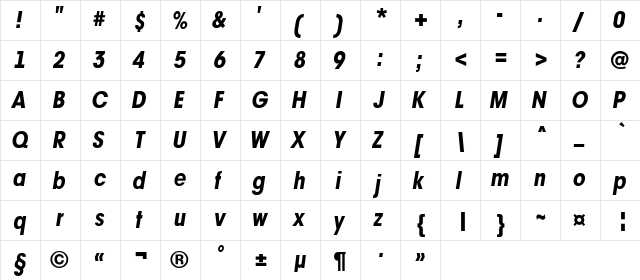
a_AvanteTckNr ExtraBoldItalic
Design Context for a_AvanteTckNr Typeface
a_AvanteTckNr offers clean, dependable letterforms without strong stylistic allegiance, making it a practical choice for designers who need flexibility. The dynamic lean of this cut emphasises speed and emphasis in any layout. Its bold stroke weight gives it real presence on the page.